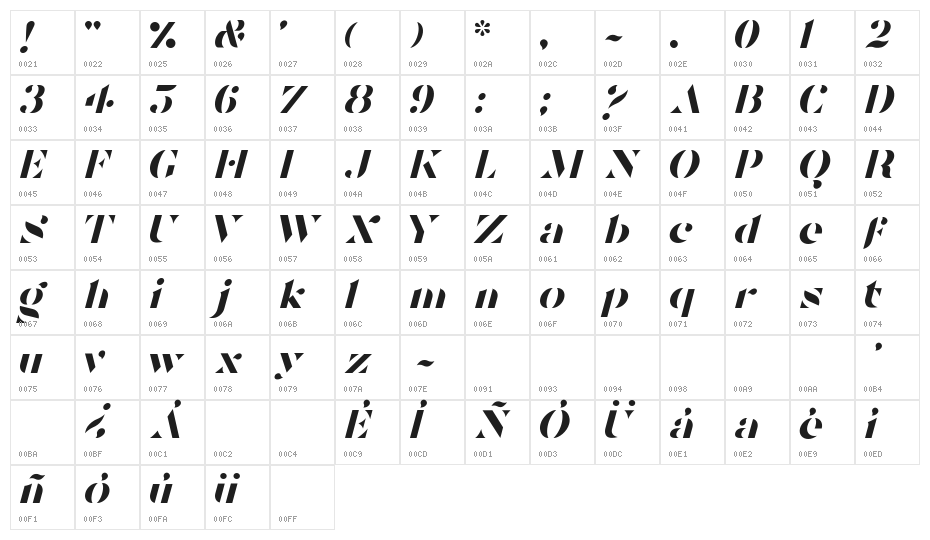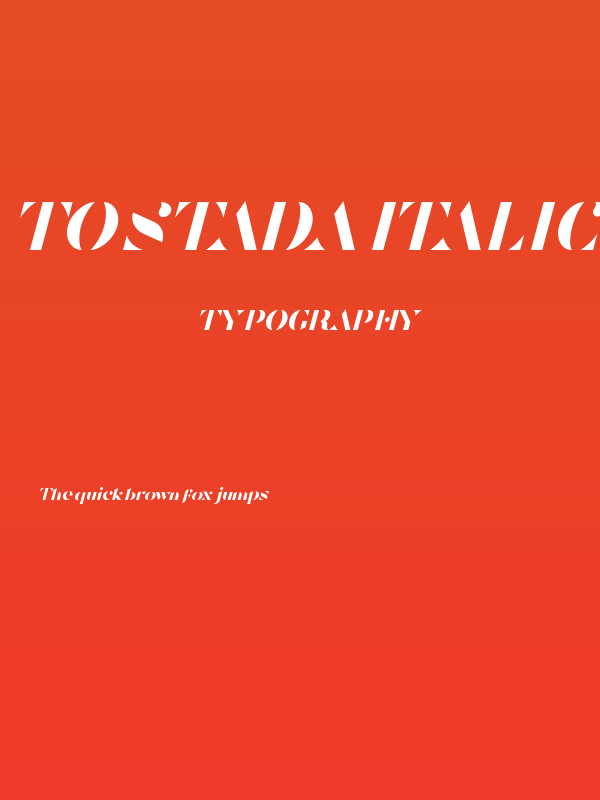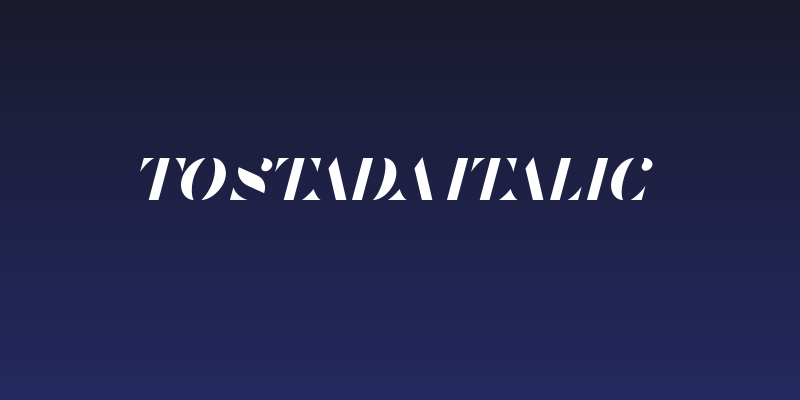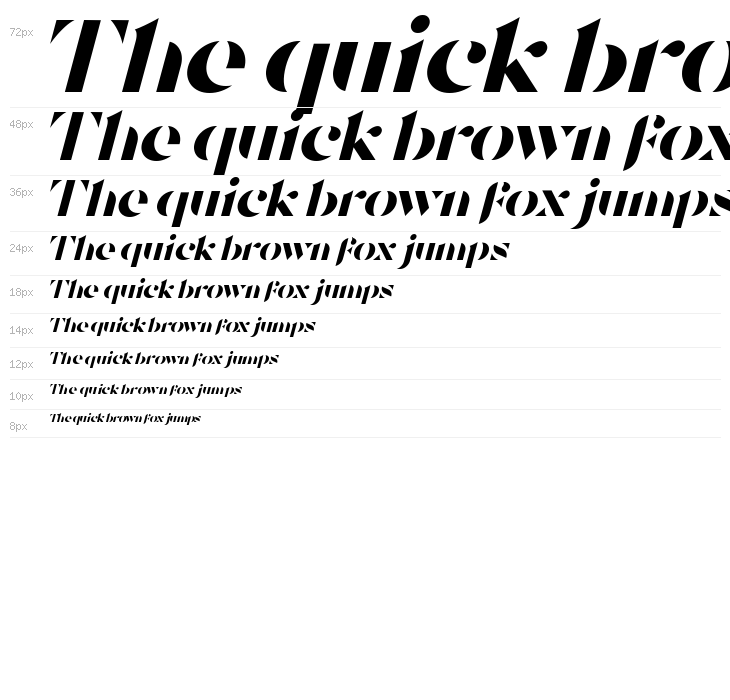
Tostada Italic Font
Tostada Italic Description
This font features a bold and dynamic style with a strong italic slant, creating a sense of movement and energy. The characters are designed with high contrast, showcasing thick and thin strokes that add a dramatic flair. The uppercase letters are particularly striking, with sharp angles and unique cuts that give them a modern and edgy appearance. The lowercase letters maintain this boldness while offering a slightly softer look, making them versatile for various design applications. The numerals and special characters are consistent with the overall style, ensuring a cohesive look across all text elements.